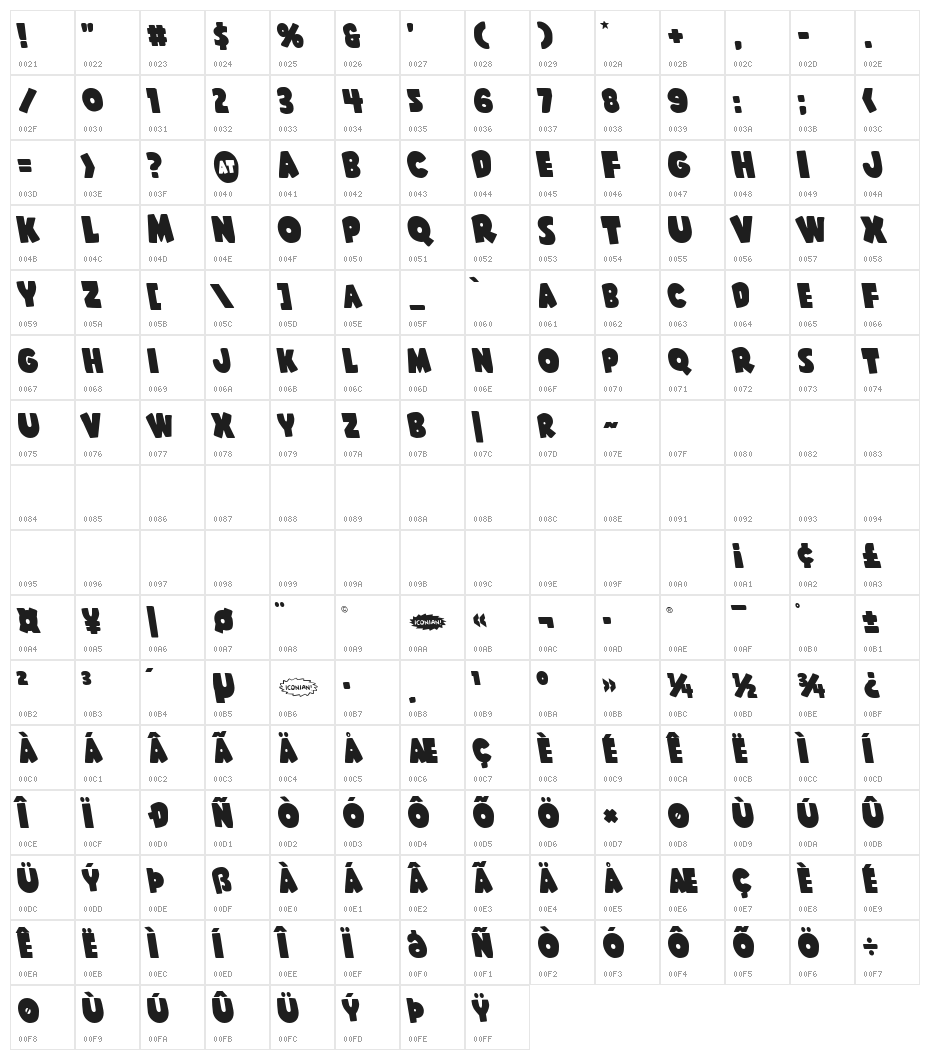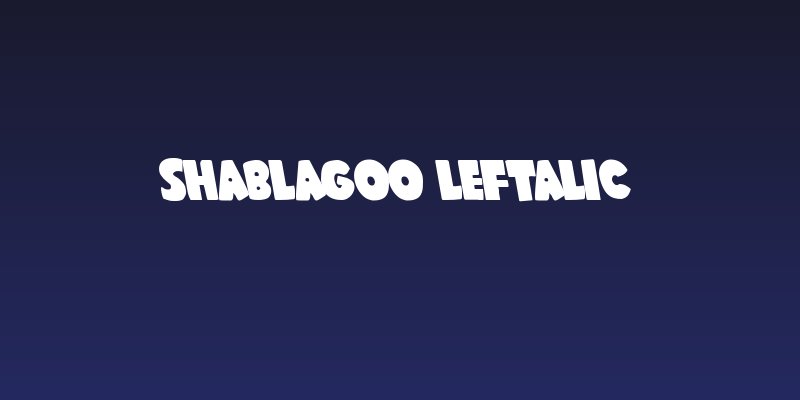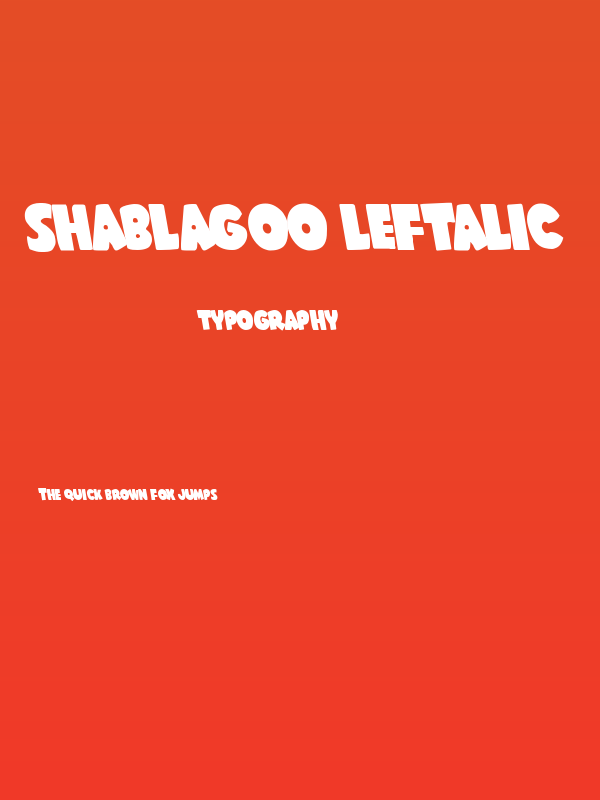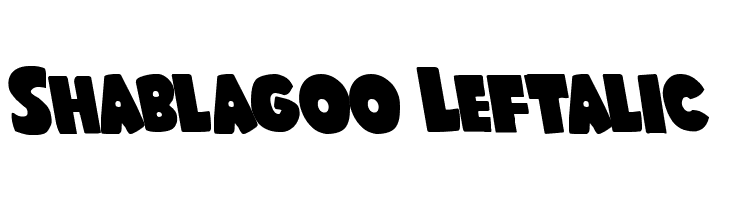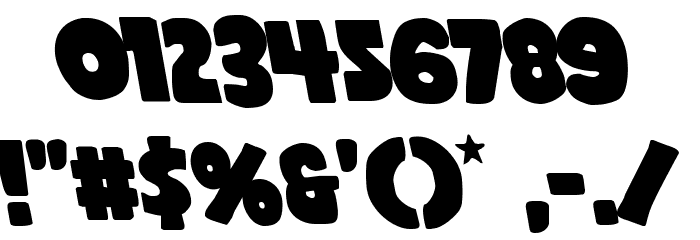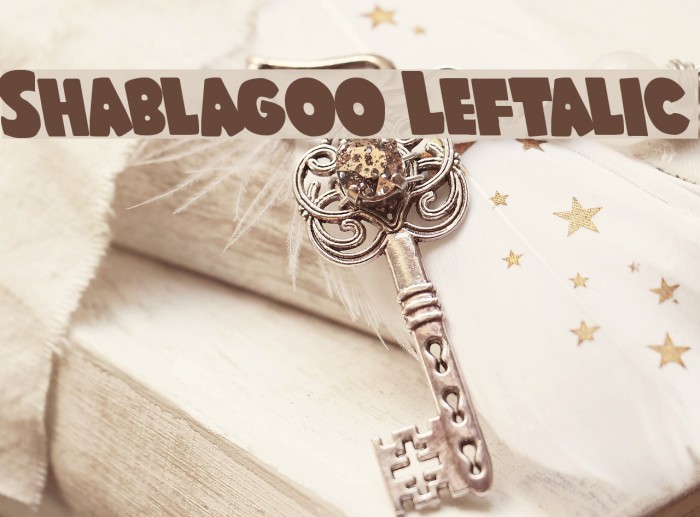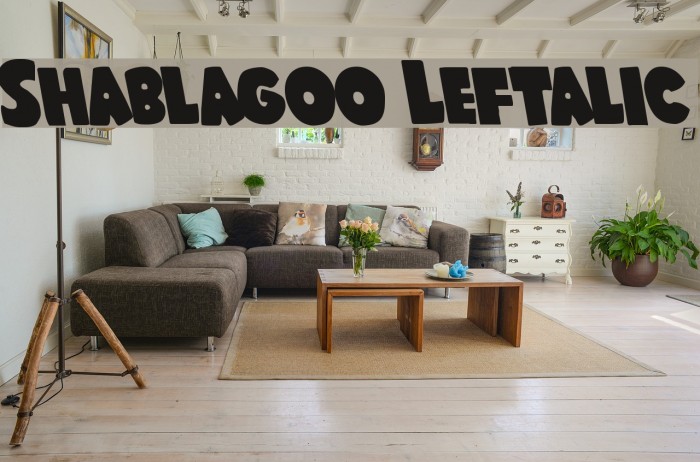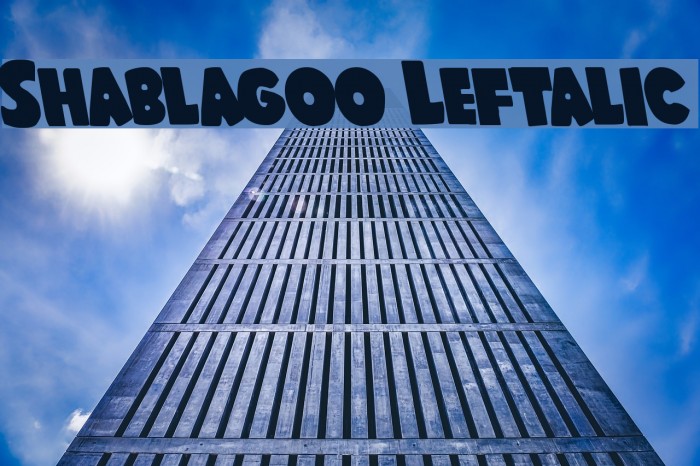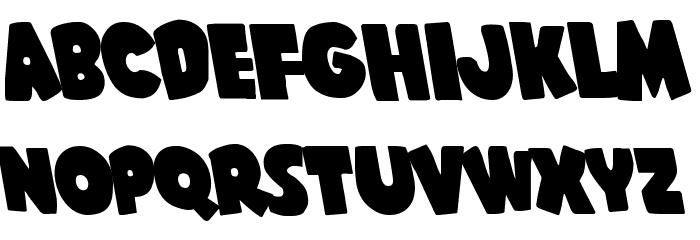
Shablagoo Leftalic Font
Shablagoo Leftalic Description
This font is a bold and playful typeface characterized by its thick, rounded letters and exaggerated forms. The letters have a slightly slanted appearance, giving them a dynamic and energetic feel. The overall design is whimsical and cartoonish, making it ideal for projects that require a fun and informal touch. The numbers and special characters maintain the same playful style, ensuring consistency across all text elements. The font's unique style makes it stand out, perfect for capturing attention in creative and lighthearted contexts.
| Overall Style | Playful, Cartoonish |
| Proposed Projects | Ideal for children's books, comic strips, playful branding, and event posters. |